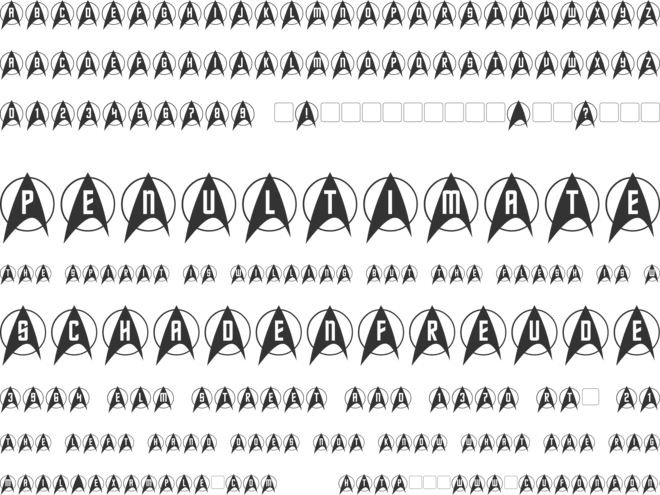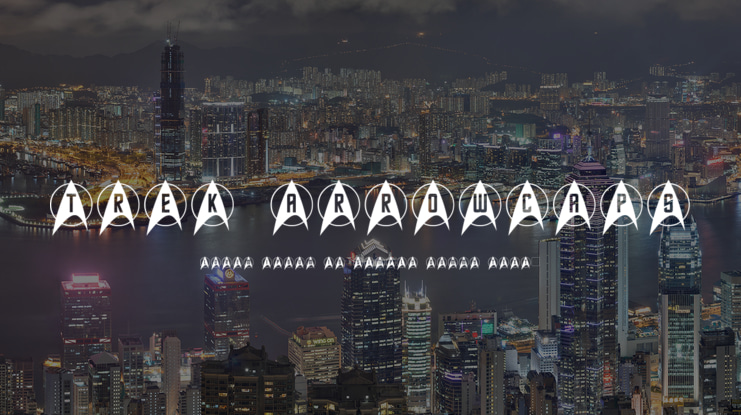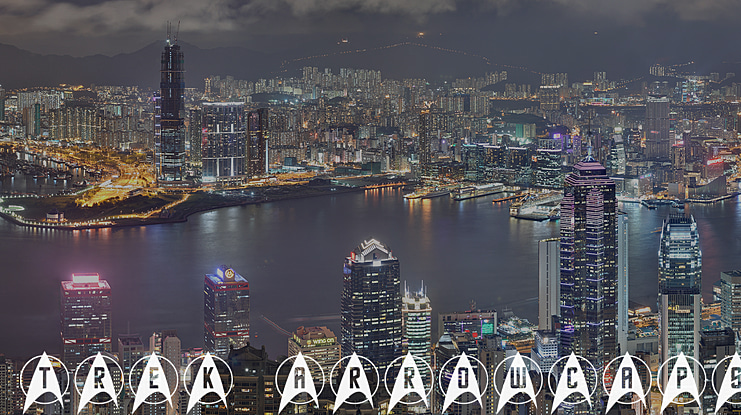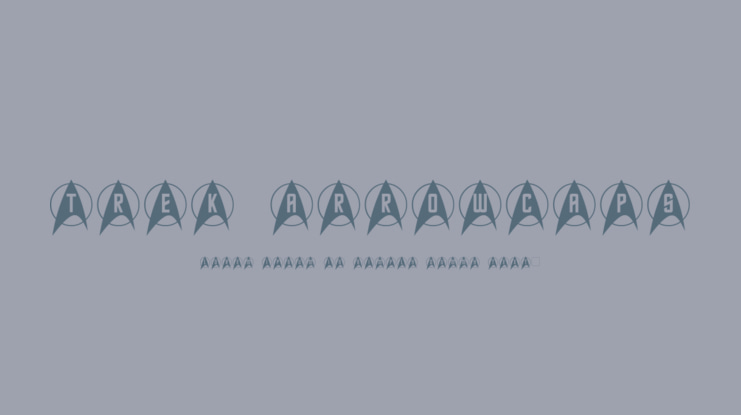
Trek Arrowcaps Font
Neale Davidson
Trek Arrowcaps (Updated) http://www.pixelsagas.com This decorative-caps typeface basically takes the capital letters from the original Star Trek logo and places them within the traditional Federation Arrowhead. Includes numerals and capital letters.